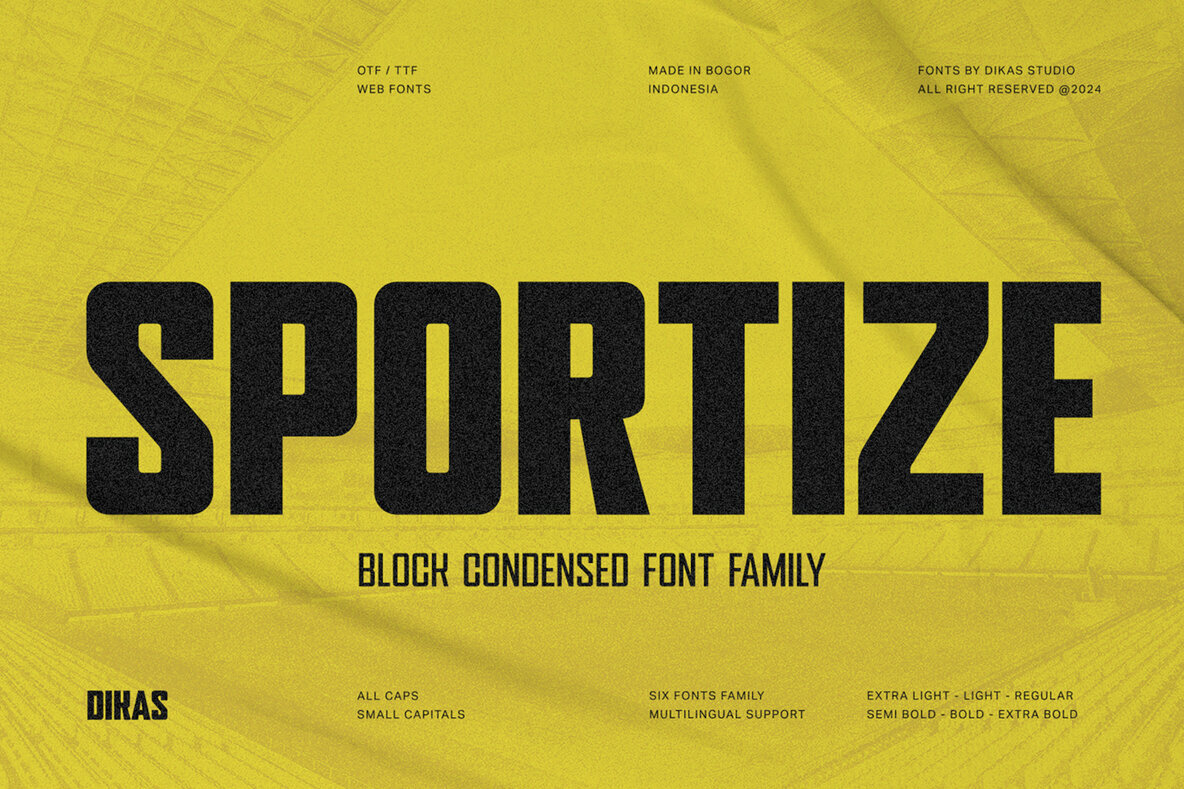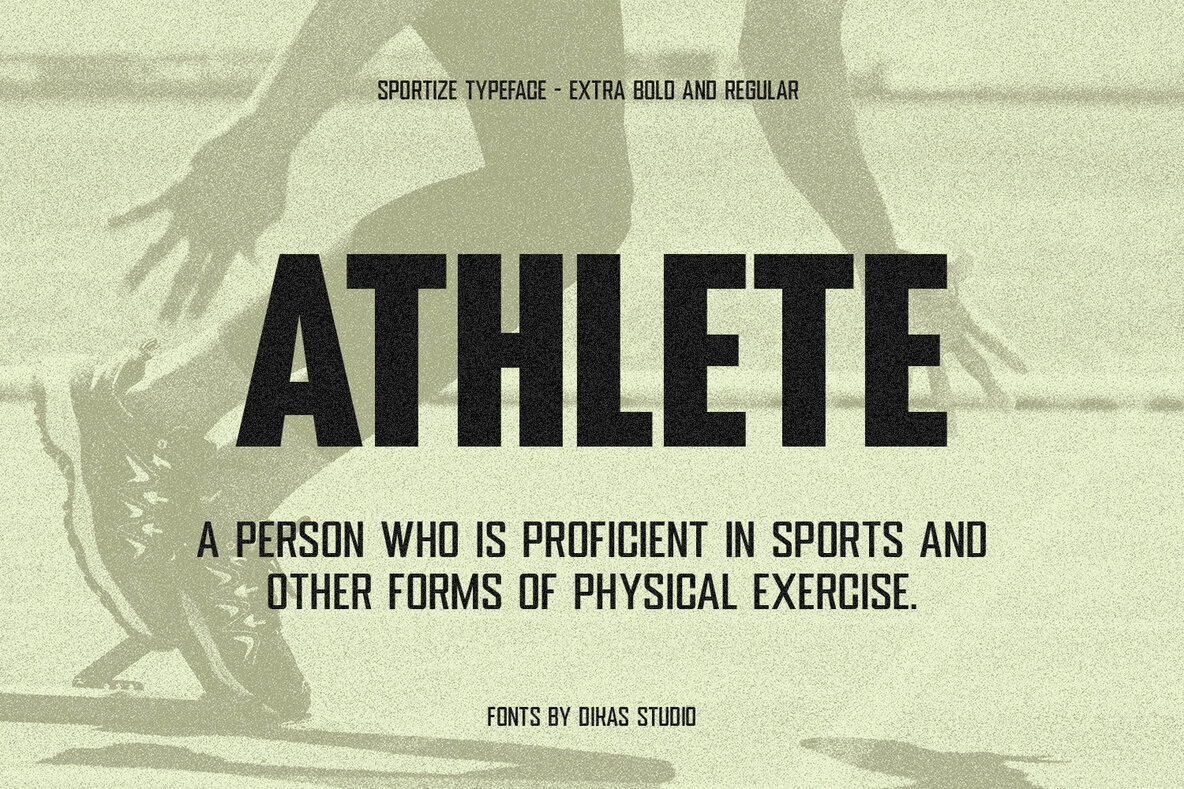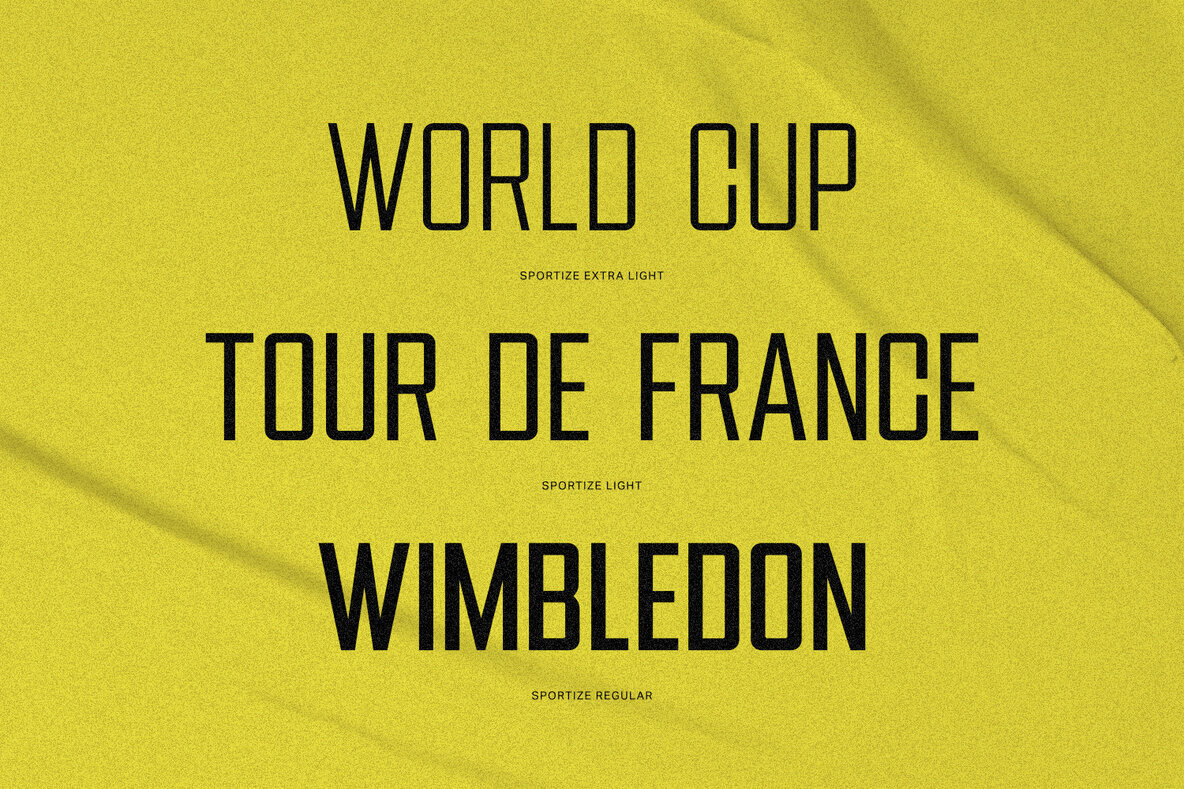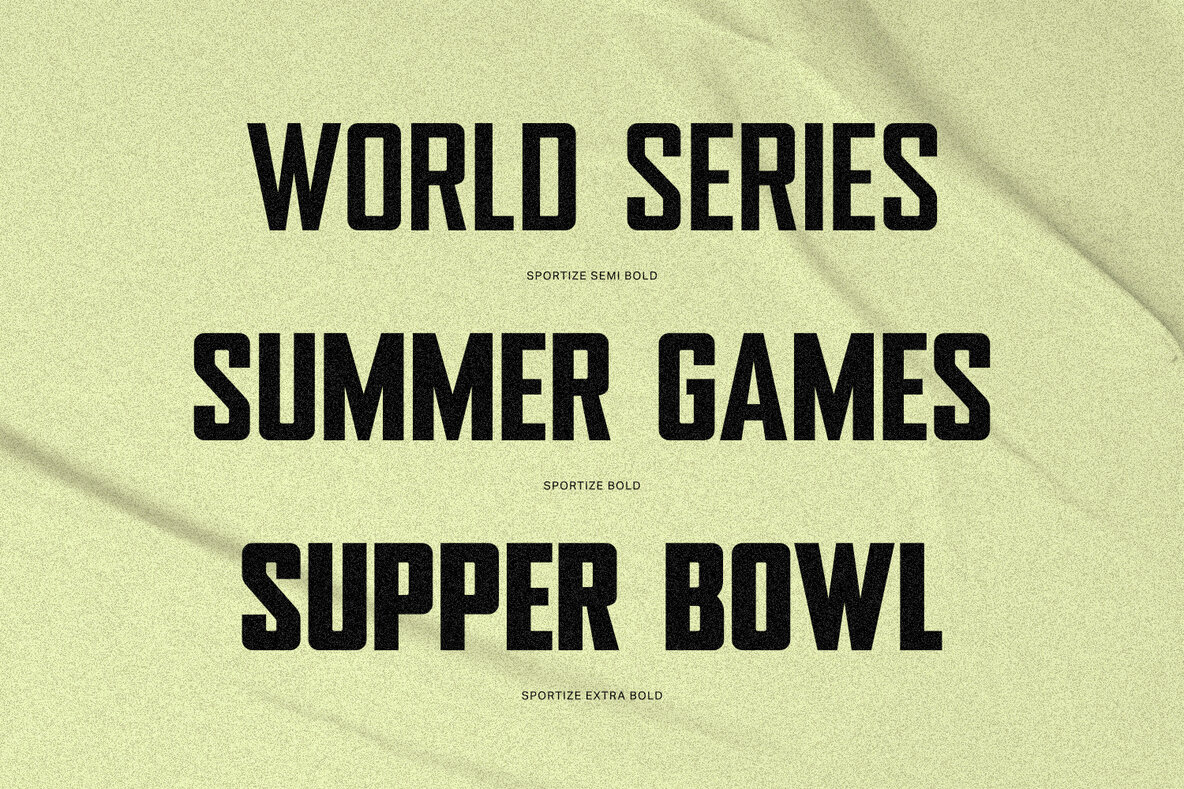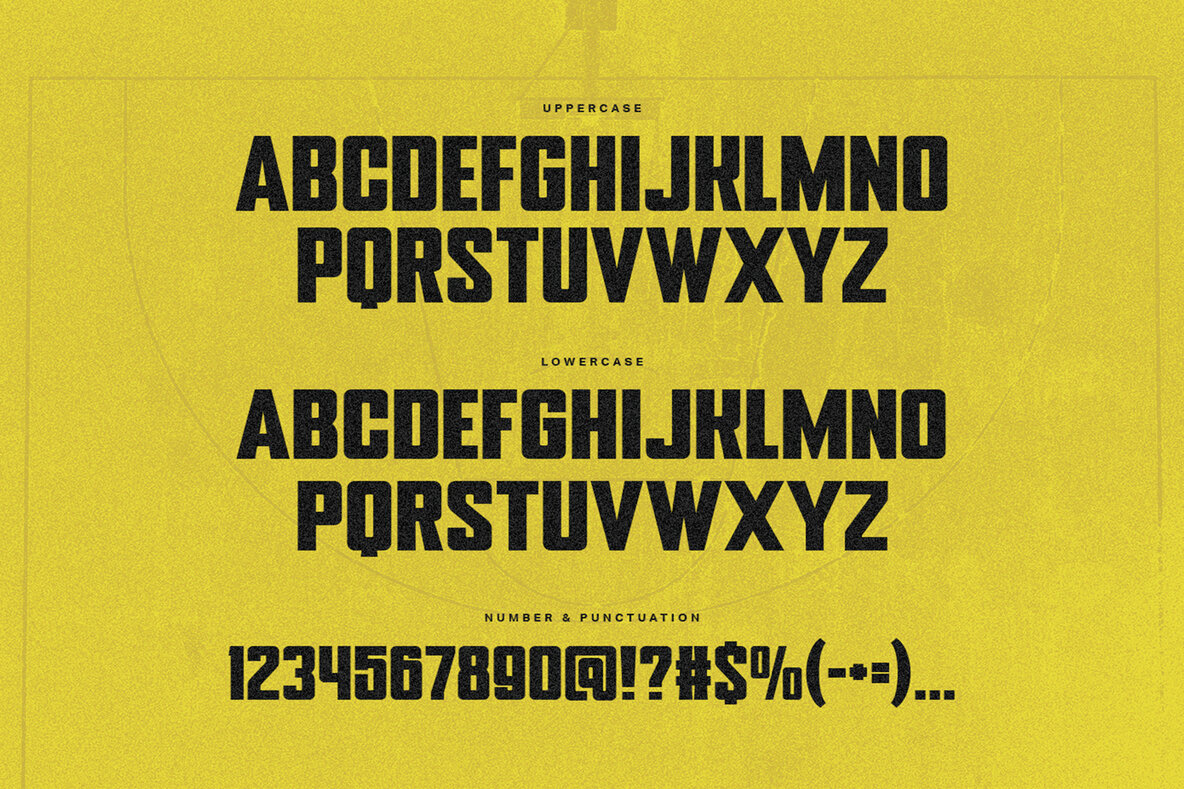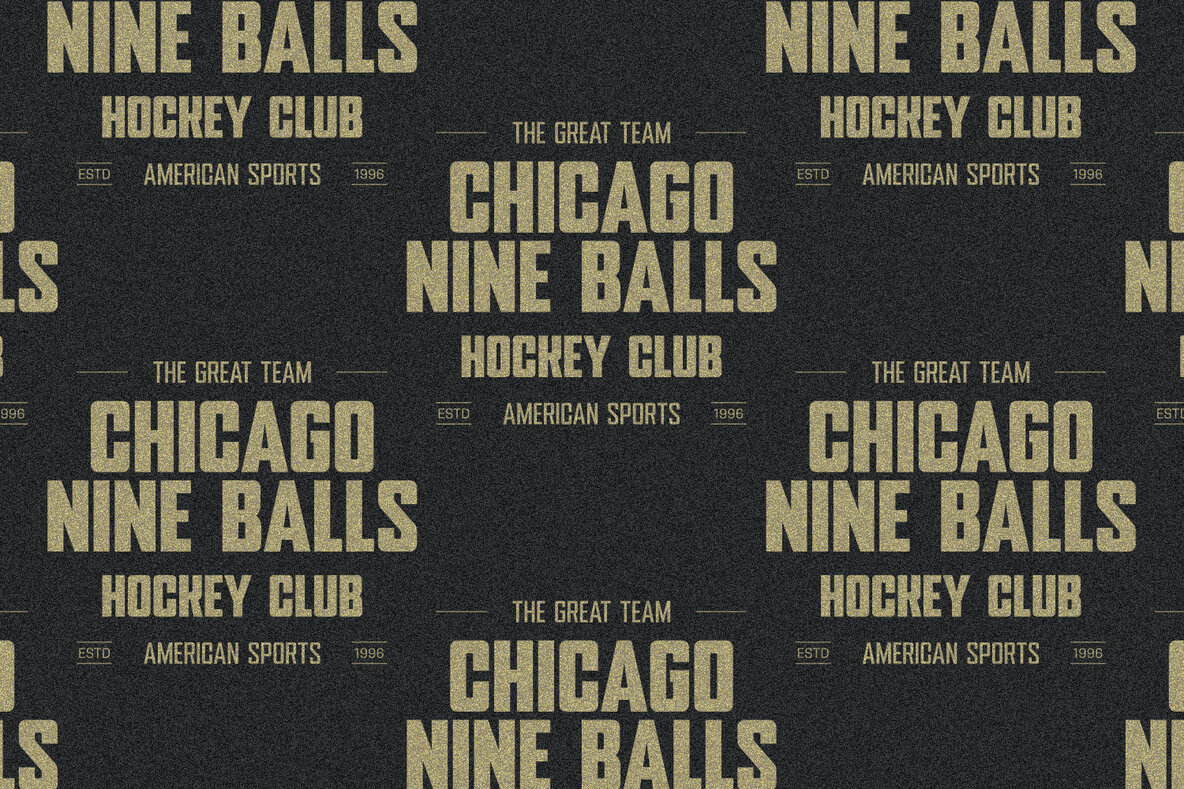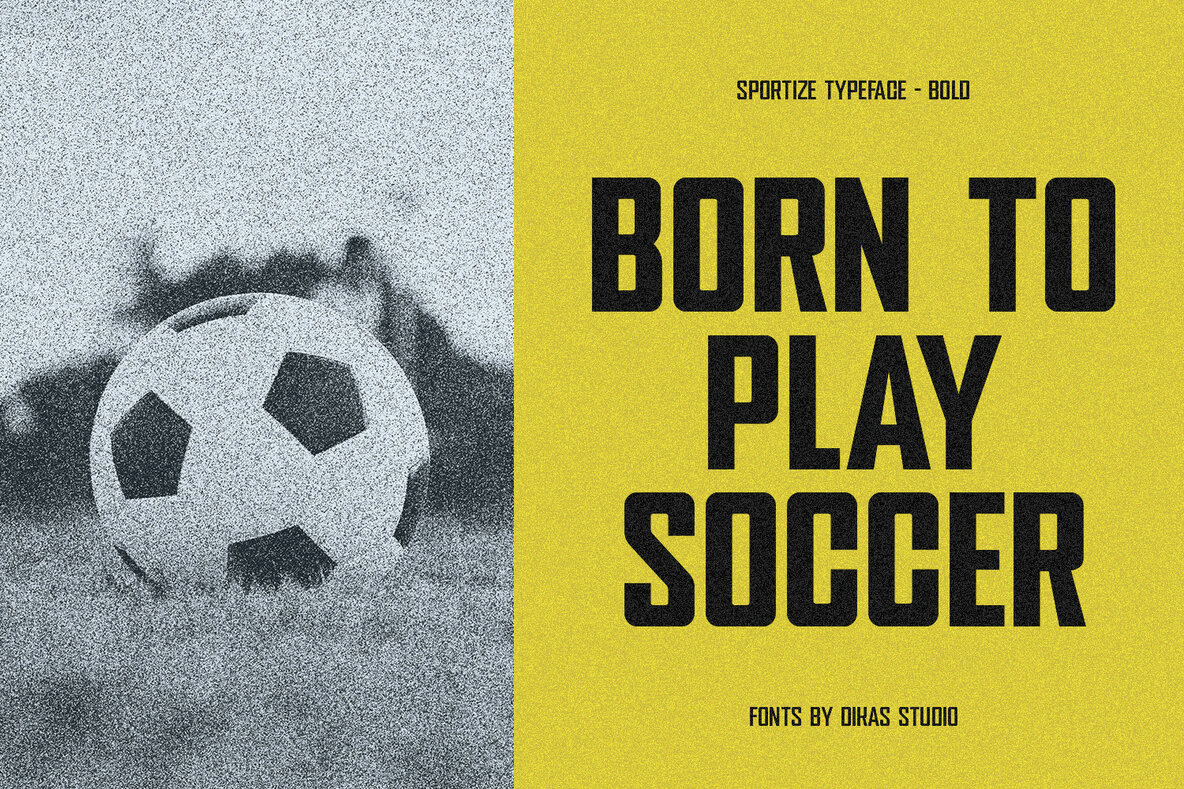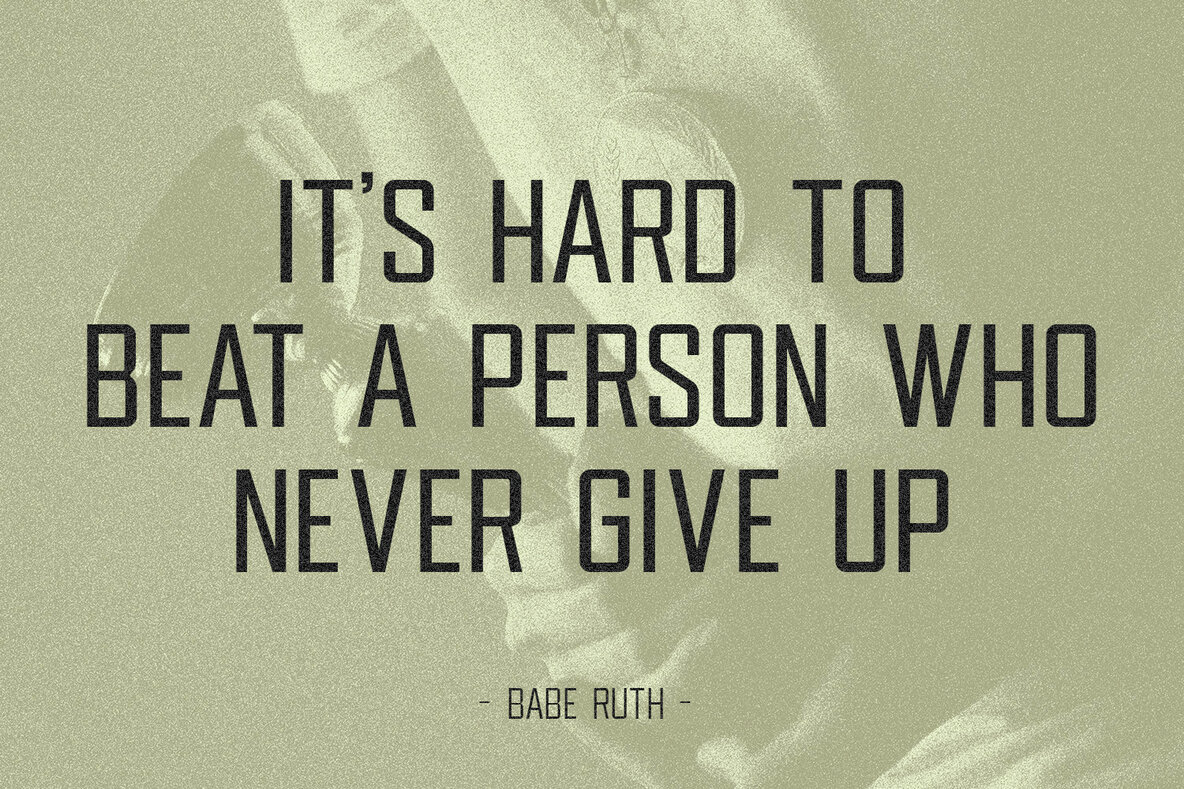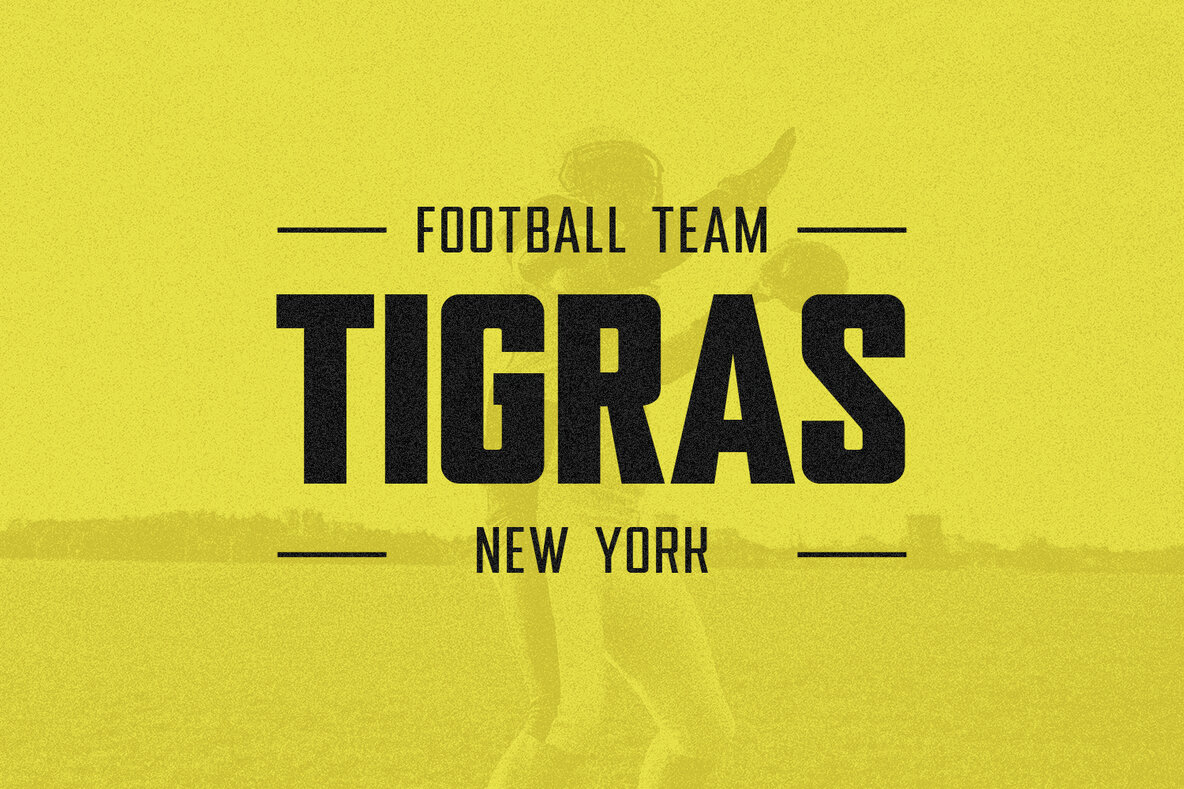
Sportize Font
Sportize is a robust, condensed sans-serif font characterized by its boxy design, ideal for sports-themed projects. Its deep emphasis on strength and style makes it perfect for headlines, posters, and any athletic branding. This font comes in six distinct styles: extra light, light, regular, semi bold, bold, and extra bold, offering versatility to suit various design needs.
Whether you're crafting visuals for a team, event, or sports brand, Sportize provides impactful and professional outcomes with a dynamic, sporty flair. Its clean and modern appearance ensures that your designs command attention and convey a sense of athleticism and energy.